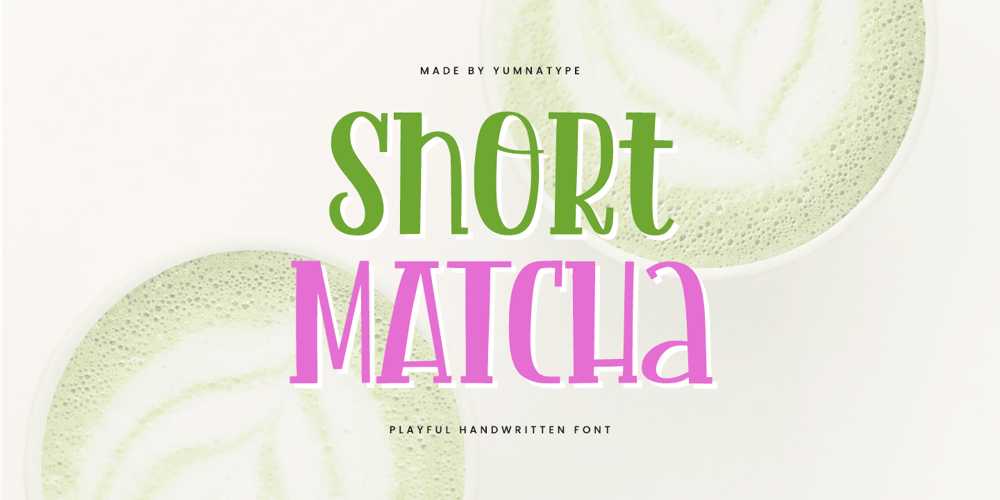
Short Matcha Font Family was designed by Donis Miftahudin and published by Yumna Type. Short Matcha contains 1 styles and family package options. Short Matcha is a delightful handwritten font that combines playful design with an elegant touch. Each letter in Short Matcha is crafted with a whimsical, hand-drawn quality, featuring lively and fluid strokes that add a sense of movement and personality. The light weight of the font ensures a delicate appearance, making it perfect for designs that seek to convey a sense of joy and creativity.What sets Short Matcha apart is its very visible contrast. The striking differences between thick and thin strokes enhance its visual appeal, adding depth and sophistication to the playful design. This contrast makes the font stand out, ensuring that your text captures attention and leaves a lasting impression. In addition, enjoy the features here.Features: Multilingual Supports PUA Encoded Numerals and Punctuations Short Matcha fits in headlines, logos, posters, flyers, branding materials, print media, editorial layouts, and many more designs. Find out more ways to use this font by taking a look at the font preview.Thanks for purchasing our fonts. Hopefully, you have a great time using our font. Feel free to contact us anytime for further information or when you have trouble with the font. Thanks a lot and happy designing.